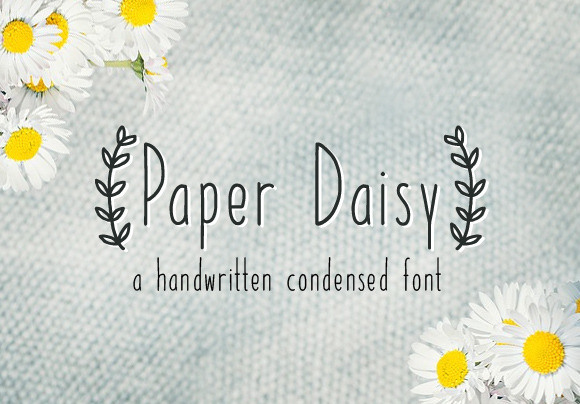
Paper Daisy is a handwritten condensed font with love for detail. It's perfect to add a neat and individual look to your things.
Supports the following languages: Czech, Danish, Dutch, Finnish, French, German, Hungarian, Icelandic, Italian, Norwegian, Polish, Portuguese, Spanish, Swedish (and any other languages using the basic Latin alphabet).